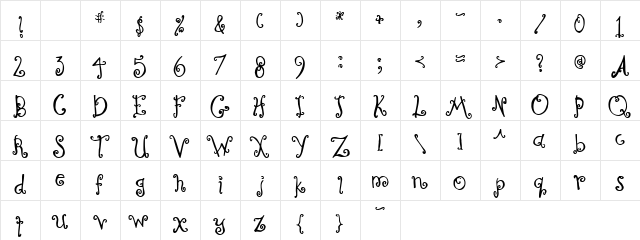
Curly Coryphaeus Regular
Design Context for Curly Coryphaeus Typeface
Curly Coryphaeus is a composed and adaptable typeface that performs quietly and consistently across a wide range of design contexts.